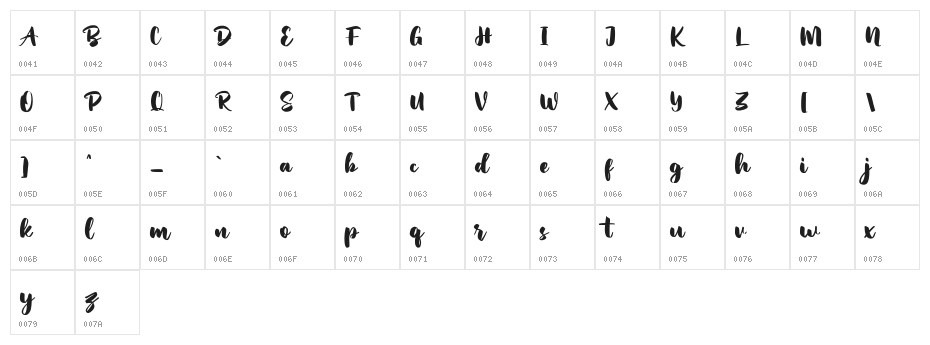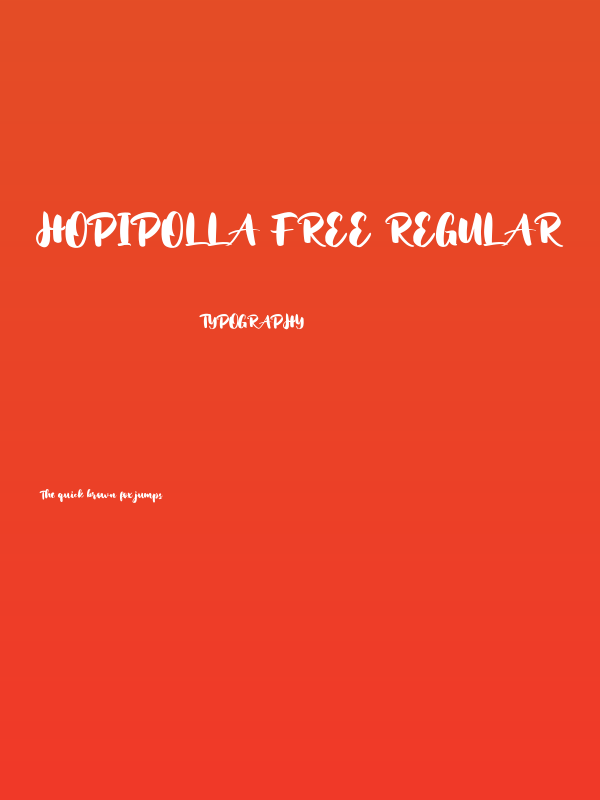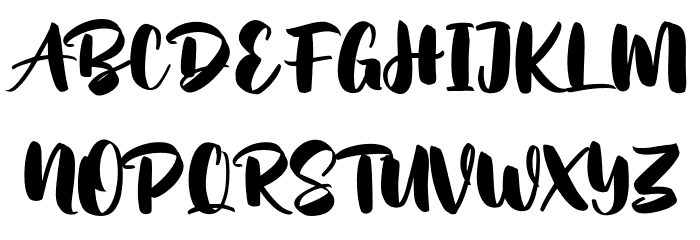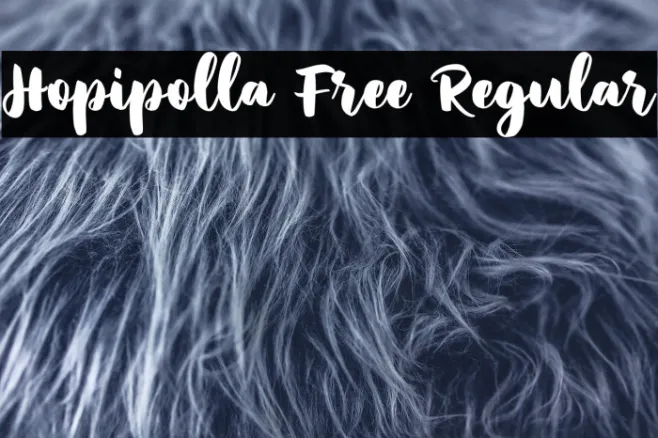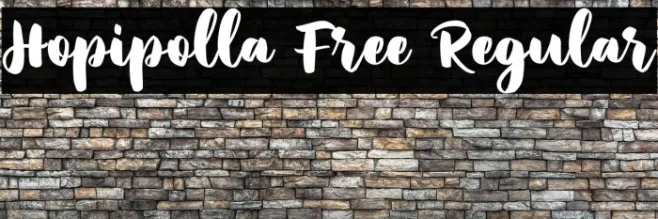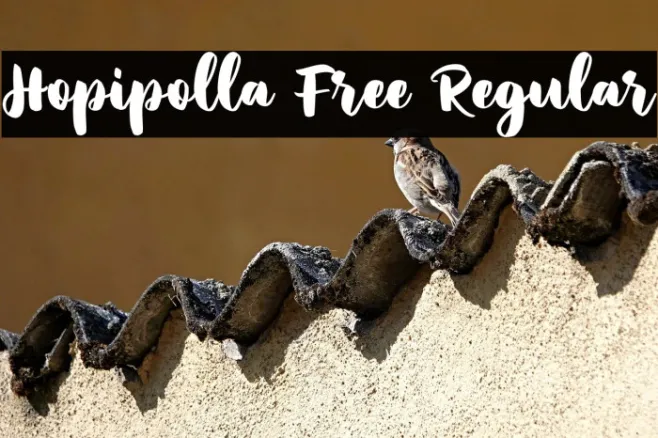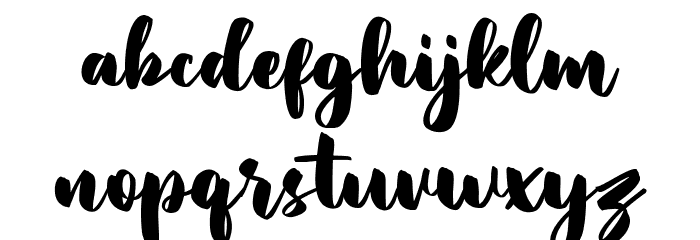
Hopipolla Free Regular Font
Hopipolla Free Regular Description
This font features a bold, expressive style with a handwritten feel. The letters are characterized by thick strokes and a dynamic flow, giving it a lively and energetic appearance. The uppercase and lowercase letters maintain a consistent style, with some playful variations in the curves and loops. The font's design is reminiscent of brush lettering, making it suitable for creative and artistic projects. Its boldness ensures high visibility, while the fluidity of the strokes adds a touch of elegance and sophistication.